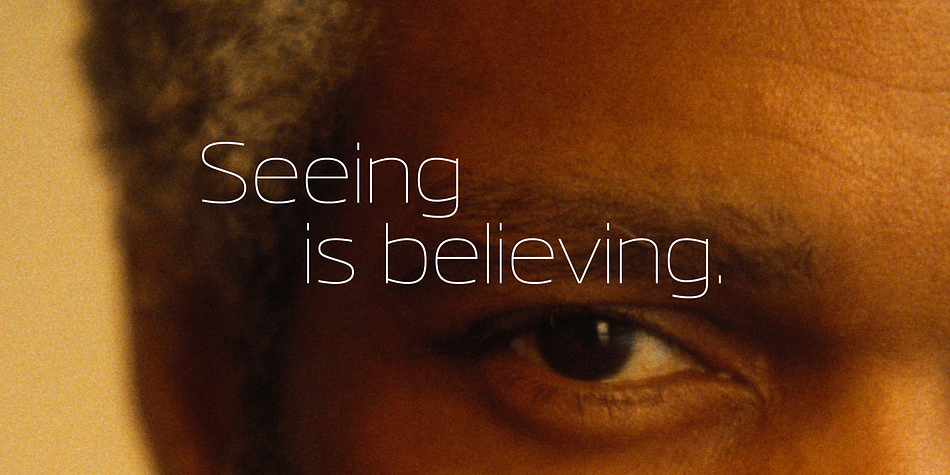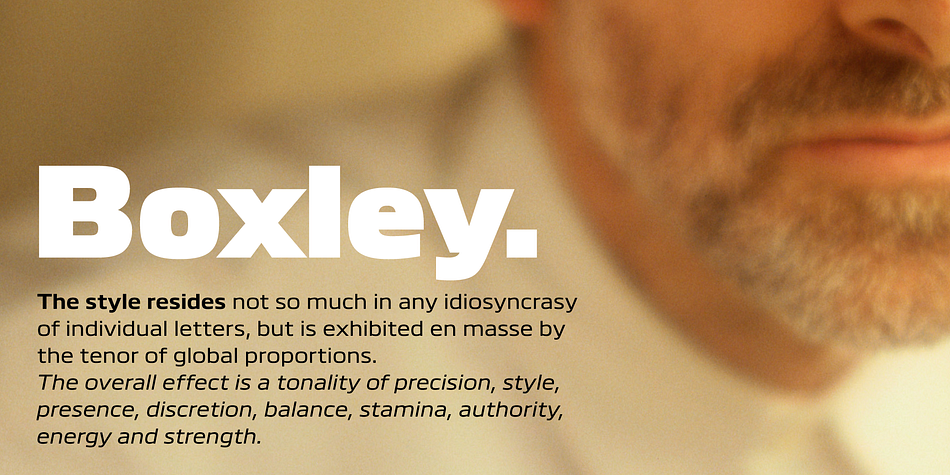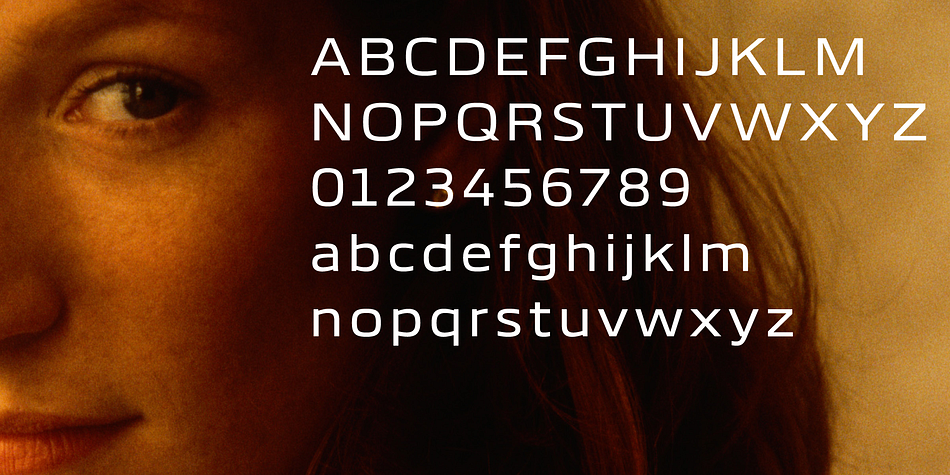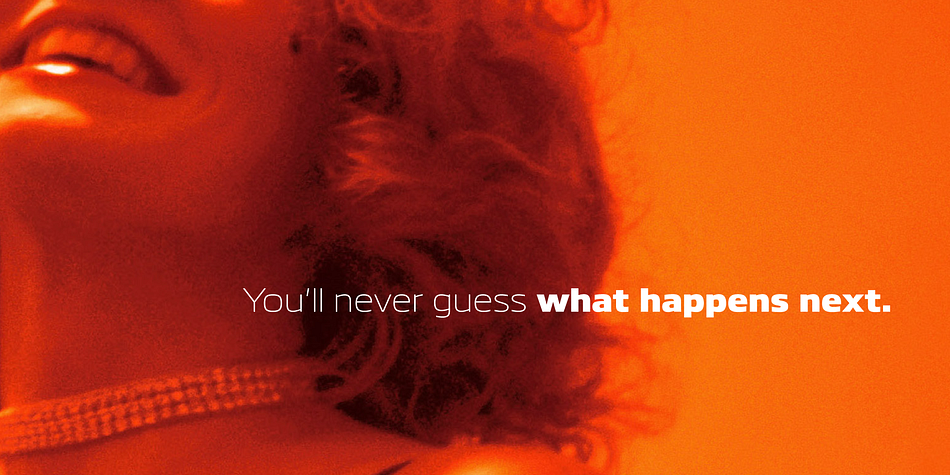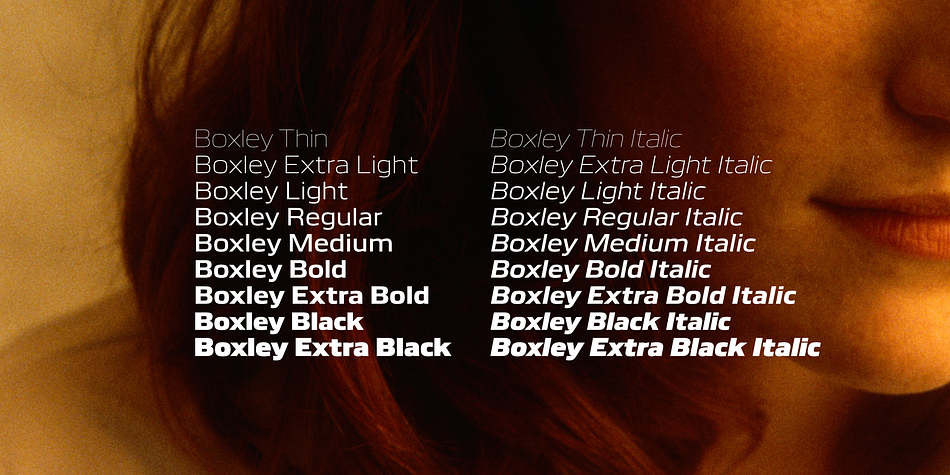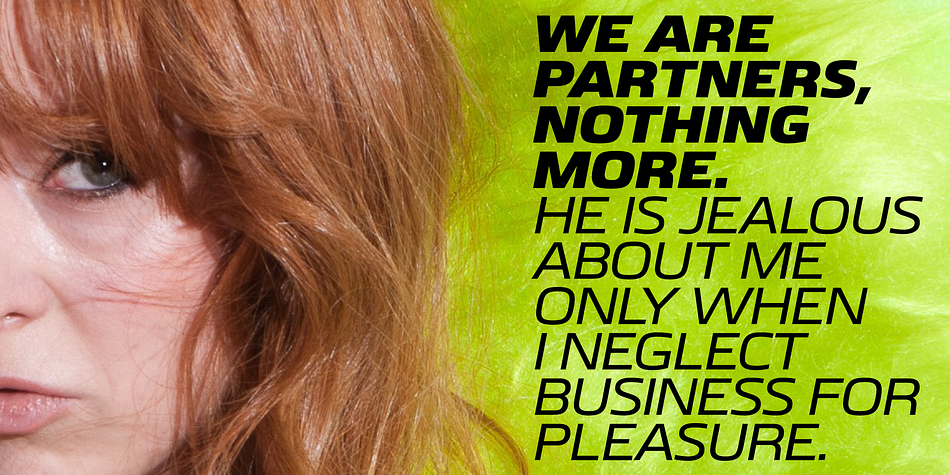
Designed by Nick Shinn, Boxley is a sans serif font family. This typeface has eighteen styles and was published by Shinntype.
Nick Shinn’s interpretation of the venerable superellipse or “squircle” genre.
The original superellipse typeface, Microgamma/Eurostyle, coincided with the emergence of the CRT (cathode ray tube) TV screen, but there is more than this visual analogy of high-tech in play, as the pumped up angularity of the curved components of the genre also informs the quality of set text.
In particular, due to the straightness of the round letters’ side stems, there is a neat modularity of vertical letter spacing, which denotes authority, with precision, complementing the tautness of the face’s curves.